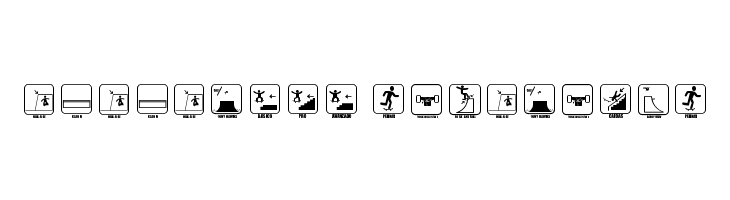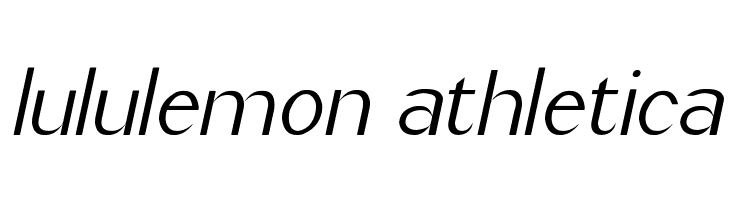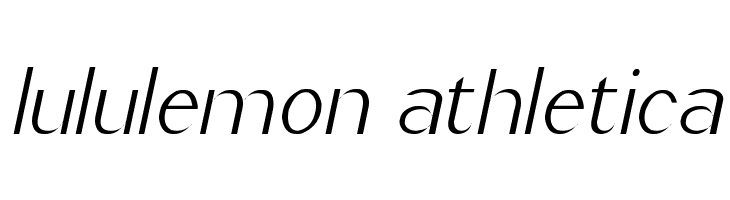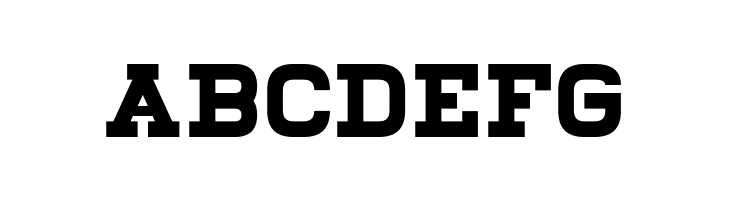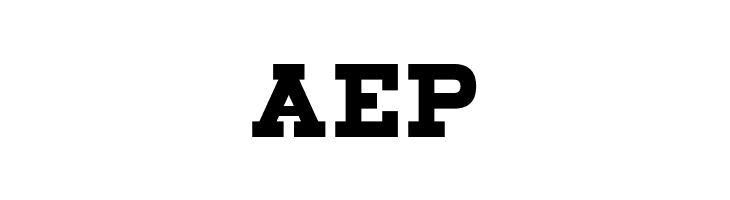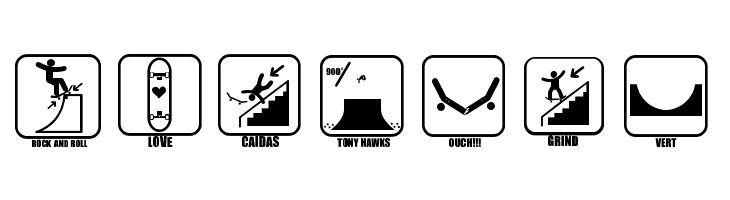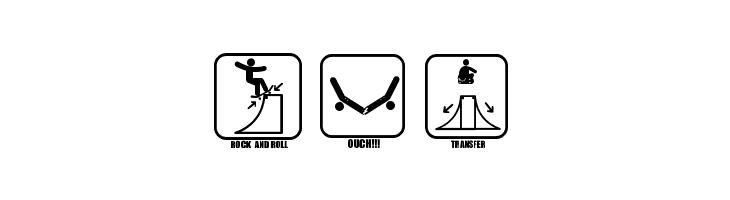
A collection of bold skateboarding icons in square frames.
A bold slab serif font with strong, impactful characters.
A modern italic font with sleek, flowing lines and slightly condensed letterforms.
A sleek, modern font with clean lines and balanced spacing.
A sleek, light italic font with a modern and elegant style.